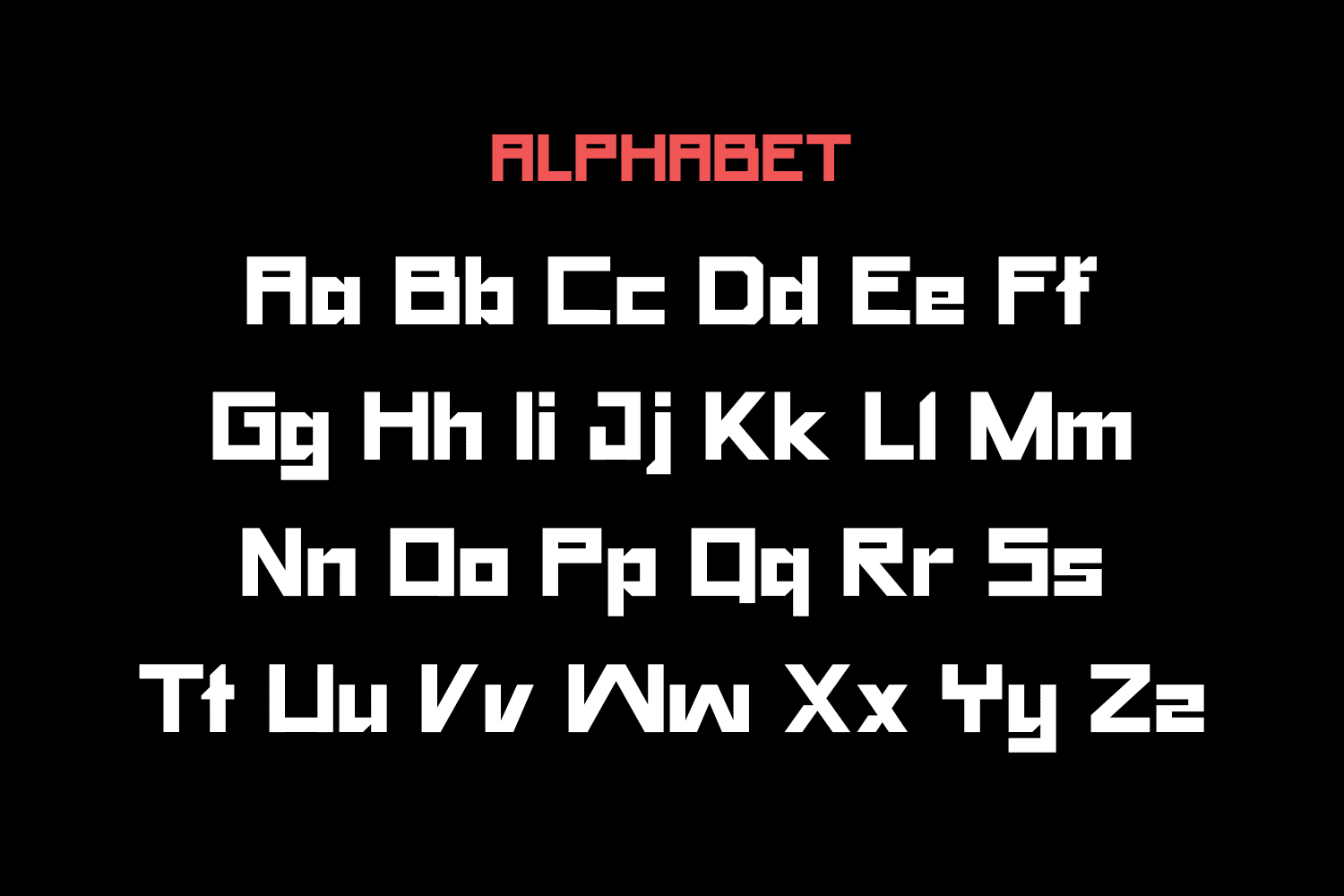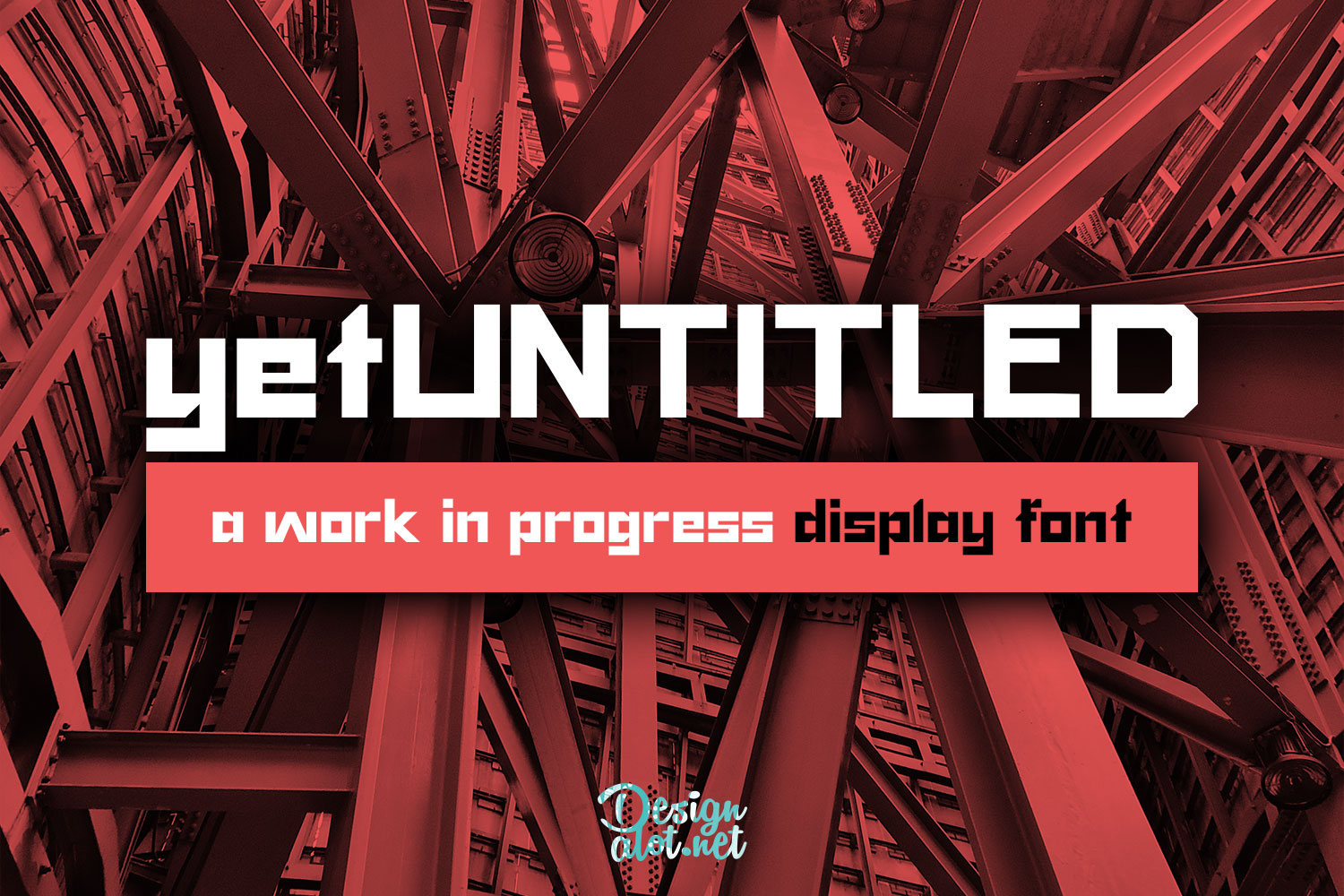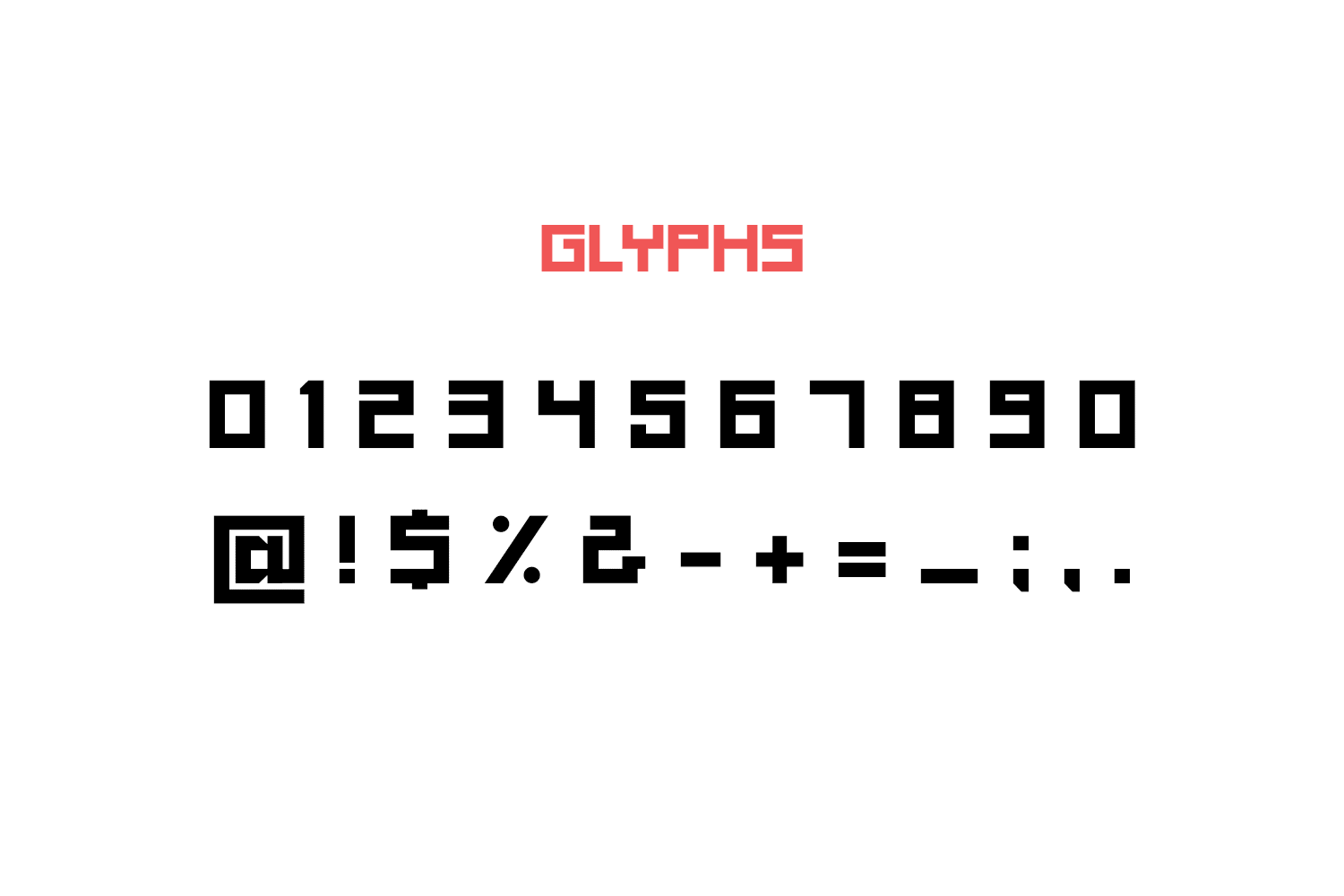
It’s been a while since I’ve created a font, so lately I’ve started to develop a Yet Untitled display font. And decided to name it exactly like that – Yet Untitled – for the time being. This will be a full typeface, which for the moment is planned in a few of styles, with alternatives and maybe different weights too. It’s still a work in progress, so we’ll see how the full typeface will end up looking.
For now, let’s talk about the current free display font. It has a thick and bold style, comes with english alphabet, numerals and a couple of glyphs/punctuation marks. I’ve worked a bit on kerning, but some letters might still have some mismatches. This font works well for regular and type based logo designs, headlines and different types of advertising materials.